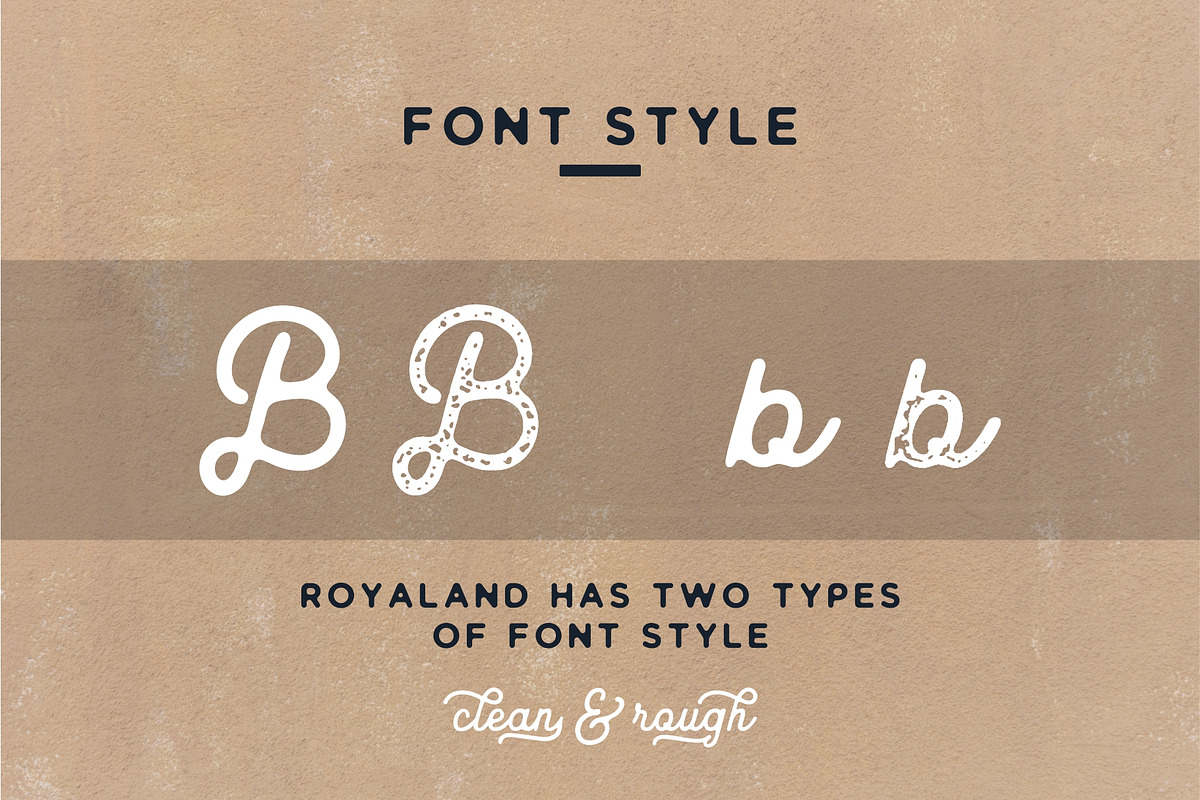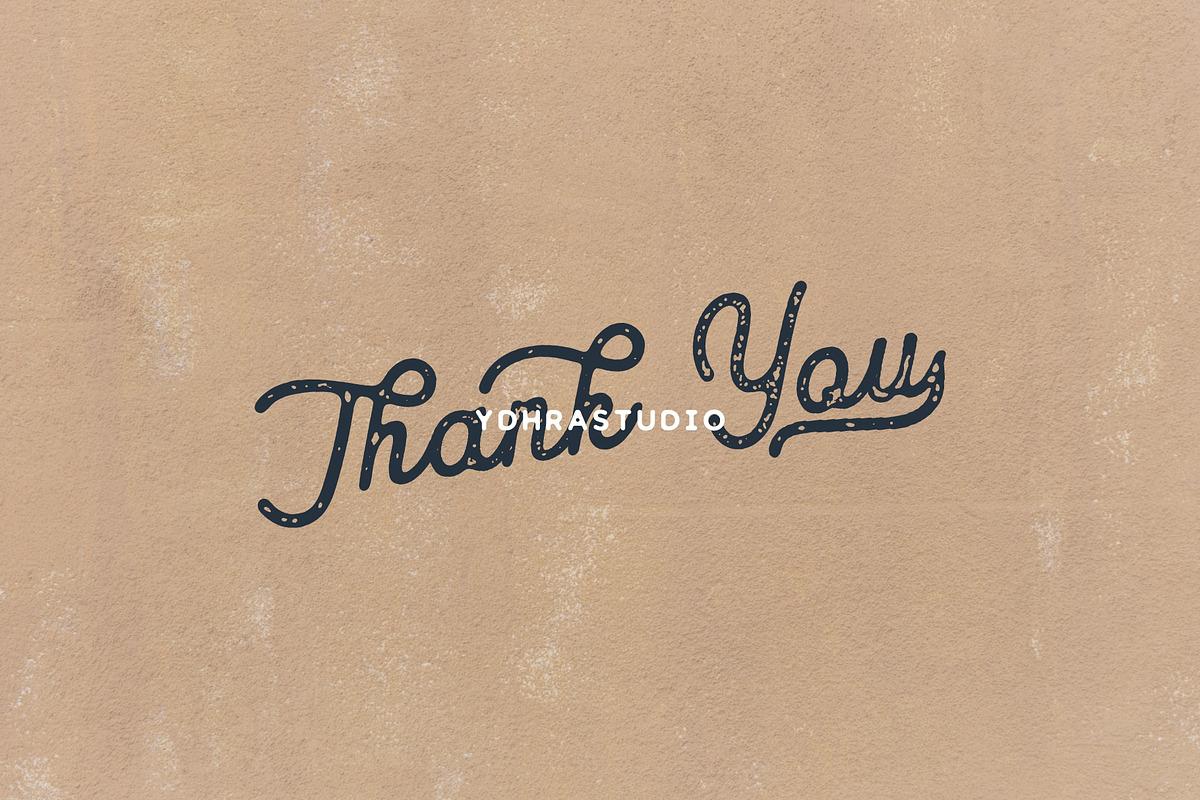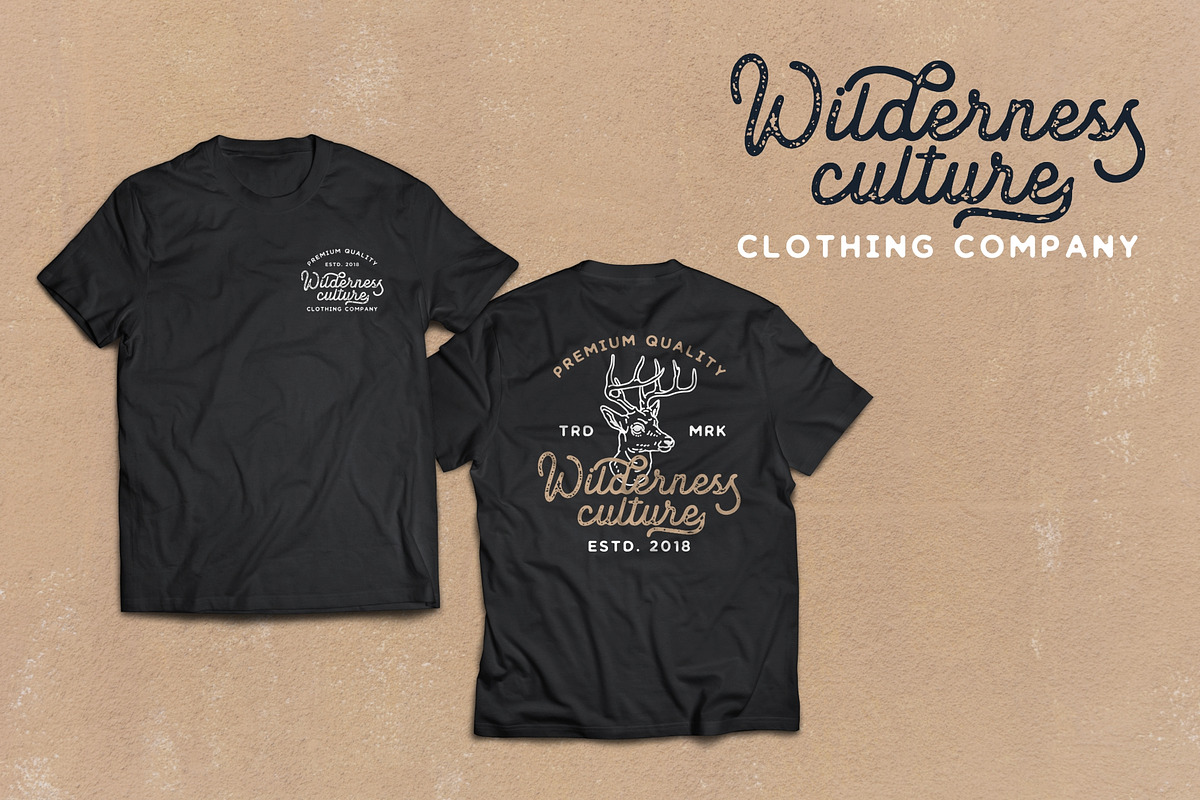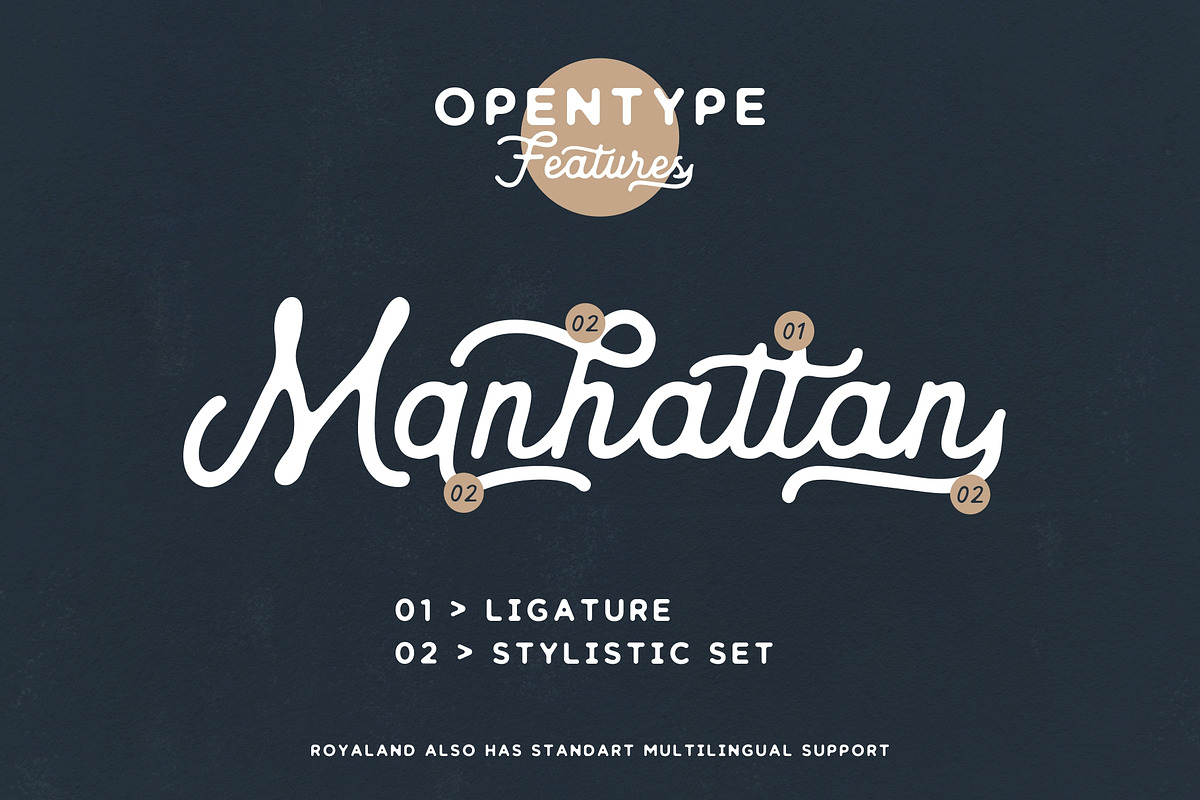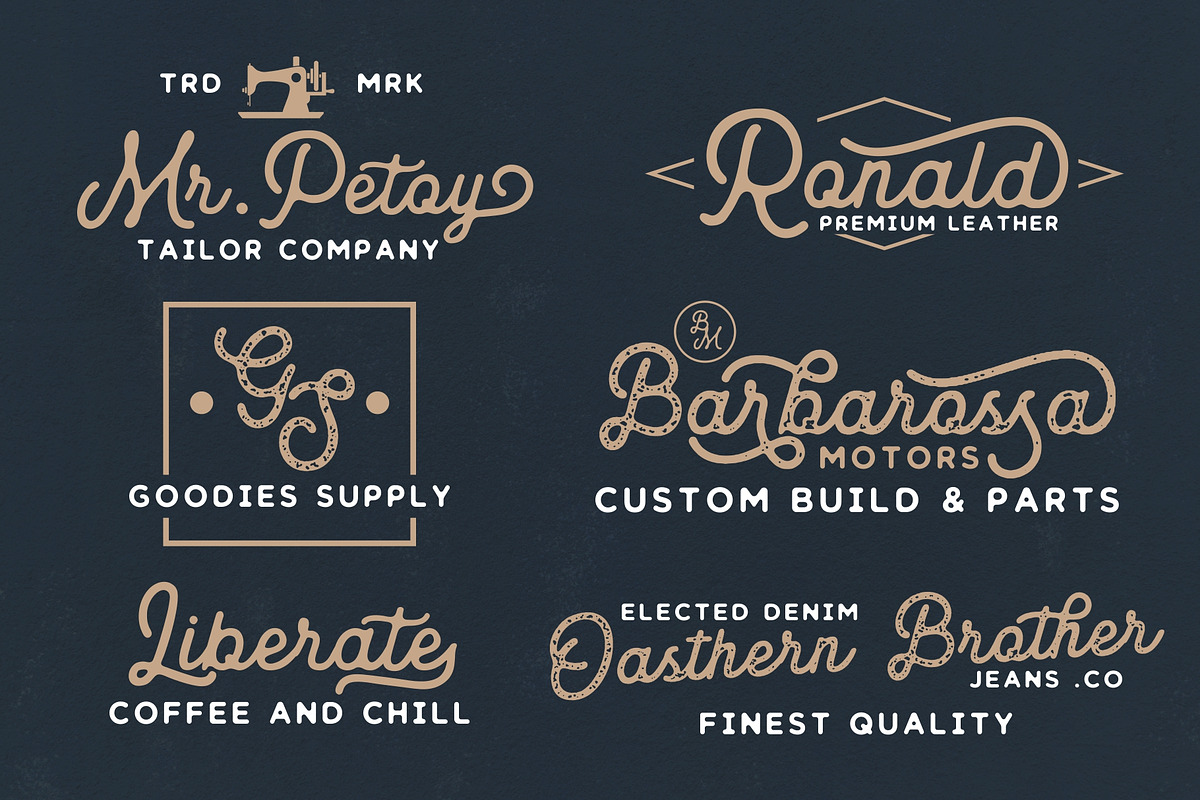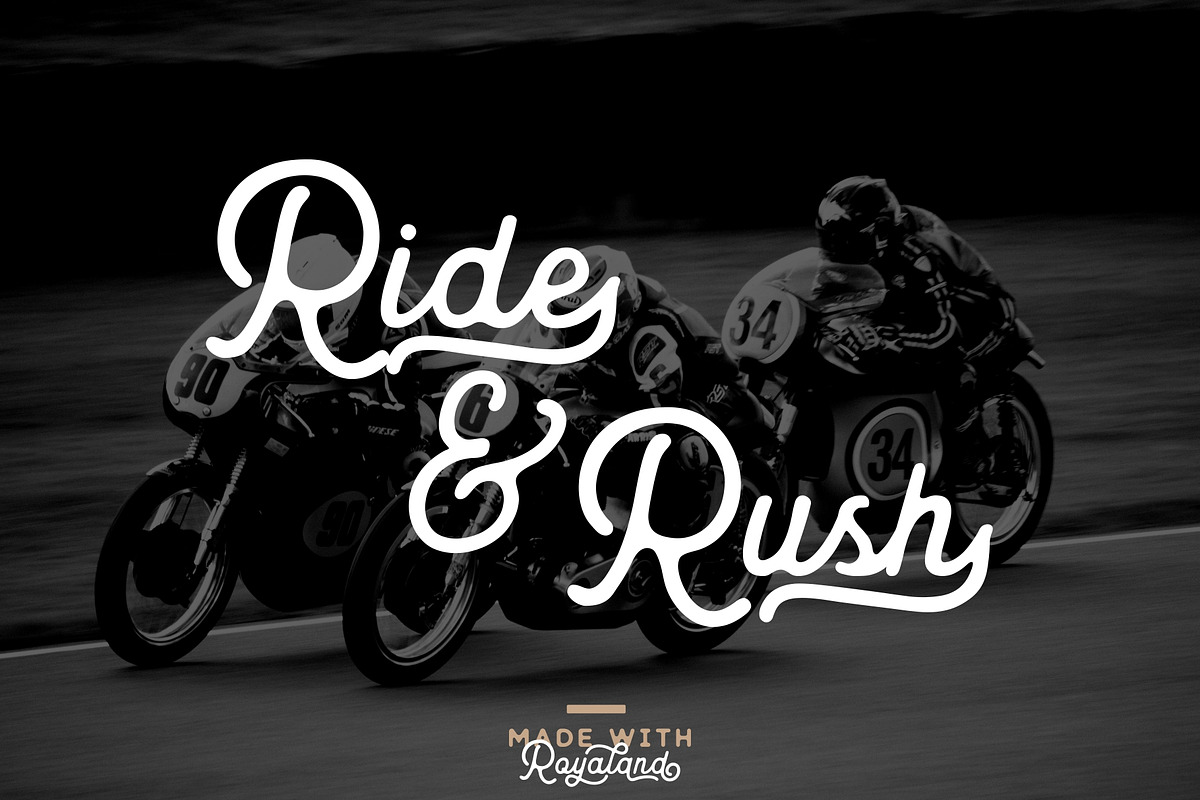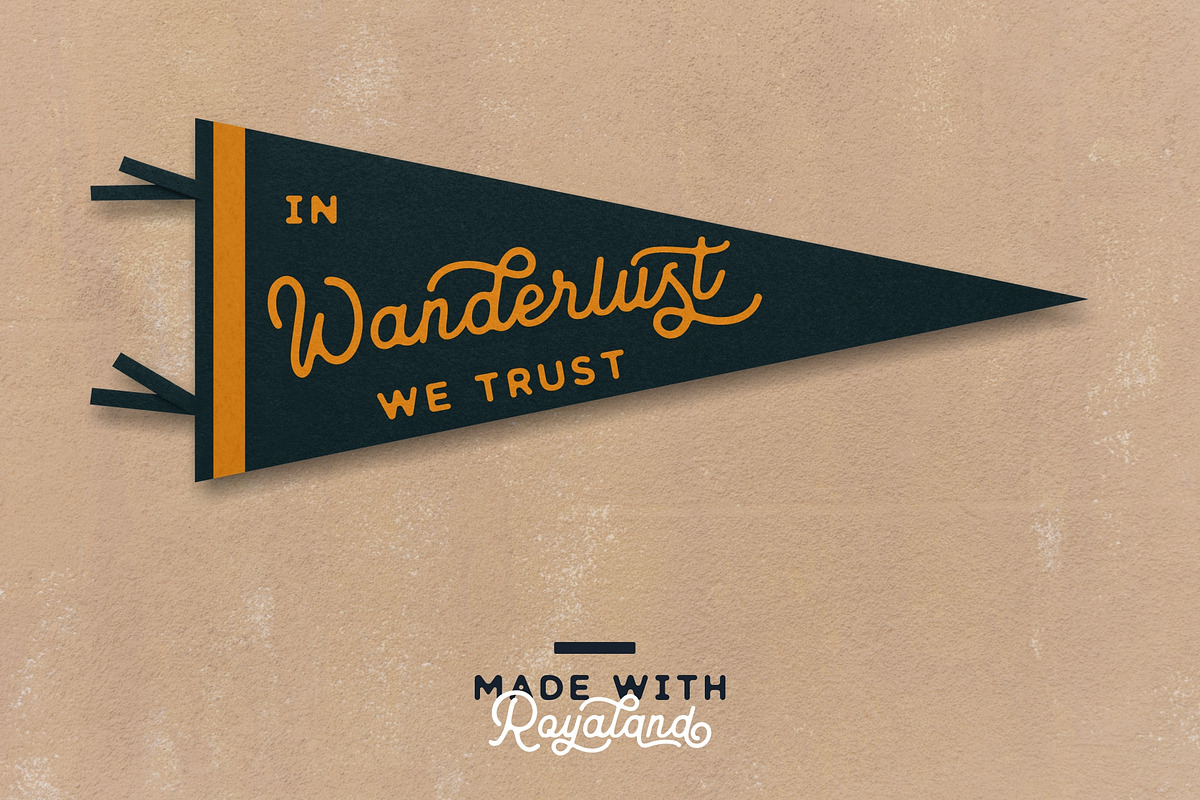
Royaland Vintage Font
We introduce our new product called Royaland Font.The Royaland Font is a monoline font which has two styles, Clean and Rough (stamped). With those kind of styles, The Royaland Font will looks more vintage. Royaland Font also has a standart Multilingual Support. Royaland Font is great for Logotype, Branding Design, Logo Design, Digital Lettering Arts, T-Shirt/Apparel, Poster, Magazine, Signs, Advertising Design, and any vintage design needs.
Royaland Font Features :
Upper and Lowercase Standard Characters, Punctuation, Numerals.
Opentype Features such as Standard Ligature and Stylistic Set include swash (ss01 - ss08).
- Royaland Clean
- Royaland Rough